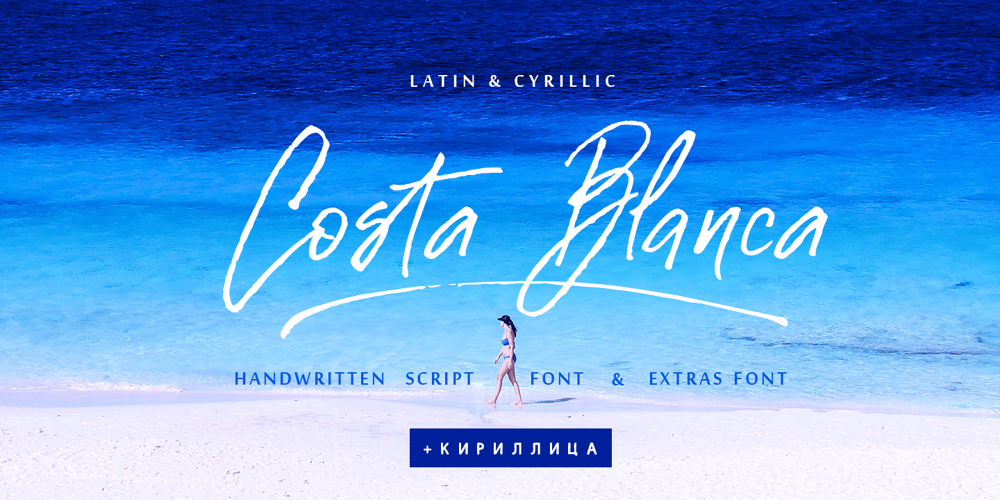
Costa Blanca Cyrillic Font Family was designed by Iryna Dviliuk and published by Ira Dvilyuk. Costa Blanca Cyrillic contains 2 styles and family package options. The hand-drawn script Costa Blanca Cyrillic was handwritten with a thin cola pen and will look great on branding design, posters, apparel, logotype, website header, fashion design, wedding card design, and more.Hand-drawn script font Costa Blanca contains a full set of uppercase letters and 2 full sets of lowercase letters and 36 ligatures – which can be used to create a handwritten calligraphy look. Use alternate lowercase and double-letter ligatures to create a perfect hand-painted look in your creations.The Cyrillic part of the font contains the uppercase letters and lowercase letters and 17 ligatures, giving a realistic hand-lettered style. Additional symbols font Costa Blanca symbols contain illustrations and elements and can help to make your design more original. It is a font with over 60 unique, hand-drawn illustrations and elements. A different symbol is assigned to every uppercase and lowercase standard character plus numbers 0-9 so you do not need graphics software just simply type the letter you need.Multilingual Support for 33 languages: Latin glyphs for Afrikaans, Albanian, Basque, Bosnian, Catalan, Danish, Dutch, English, Estonian, Faroese, Filipino, Finnish, French, Galician, Indonesian, Irish, Italian, Malay, Norwegian Bokmål, Portuguese, Slovenian, Spanish, Swahili, Swedish, Turkish, Welsh, Zulu.Works perfectly on the Canva platform. For Cricut & Silhouette recommended.And Cyrillic glyphs support for Russian, Belorussian, Bulgarian, Ukrainian, and Kazakh languages.